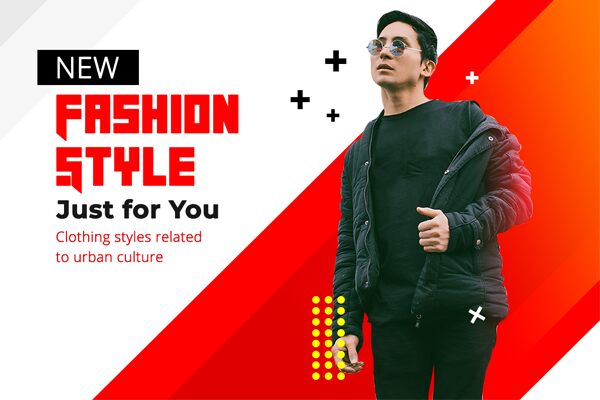
Black Indie Personal Use
Black Indie is a bold and authentic display font. The font is suitable for any branding project like logo, T-shirt printing, and many more. outstanding in a wide range of contexts.